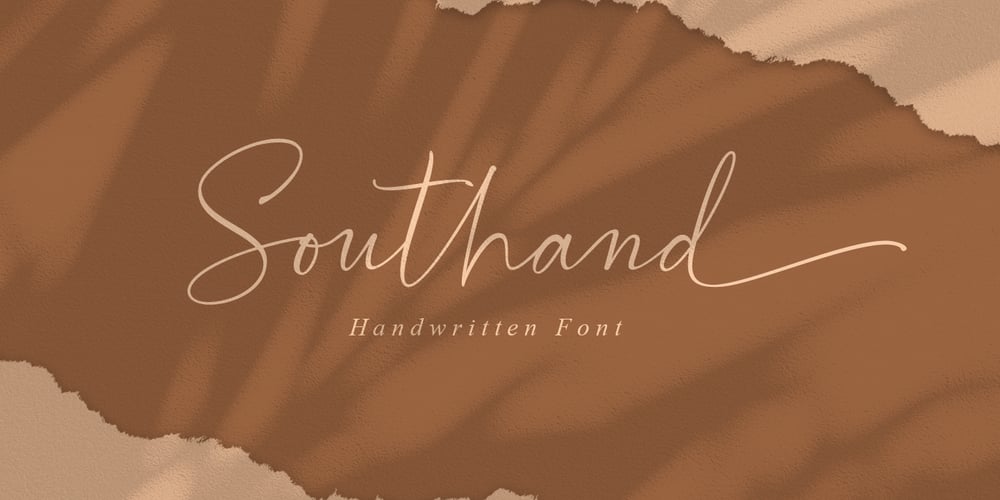
Southand Font Family was designed by Muhammad Mujibulloh and published by MJB Letters. Southand contains 1 styles and family package options. Southand is a handmade calligraphy font that is made with a touch of love in every character. This font is perfect for logos, branding, business cards, watermarks, posters and more.Southand comes with a full set of Uppercase, Lowercase, Numerals, Punctuation, and multilingual support.